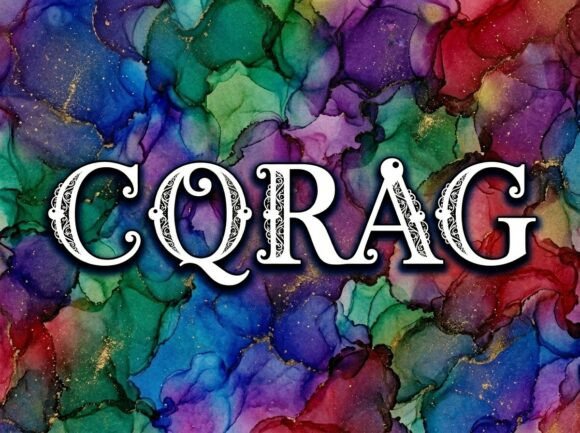
The Corag Font: A Stunning Decorative Display Font for Creative Minds
Have you ever been in the middle of a design project, pouring your heart and soul into it, only to hit a roadblock when it comes to choosing the perfect font? I certainly have! It was during one of those moments, working on a branding project for a client who wanted something truly unique and eye-catching, that I stumbled upon the Corag Font. This decorative display font has been a game-changer for me, and I’m excited to share my experience with you.
A Personal Encounter with Corag Font
I was working on a logo design for a boutique that specialized in handmade crafts. The client wanted a font that would reflect the artistic and creative vibe of their brand, but still convey a sense of professionalism. After hours of searching through font libraries and marketplaces, I came across Corag Font. Its unique artistic elements and strong visual personality immediately caught my attention. I knew I had found the perfect fit.
An Honest Review of Corag Font
So, what do I love about Corag Font? Here are a few highlights:
- ✨ Unique and eye-catching design that’s perfect for making a statement
- 💡 Versatile enough for use in bold headlines, artistic logos, and creative packaging
- 🎨 Strong visual personality that adds a touch of artistic flair to any design
However, there are a few quirks to be aware of:
- ⚠️ Corag Font is an ALL-CAPS (Uppercase Only) display typeface, which means it doesn’t include lowercase letters
- 🤔 This font is specifically designed for high-impact headlines, logos, and decorative initials, so it may not be the best choice for body text or longer blocks of text
The Backstory Behind Corag Font
Corag Font was designed with the intention of creating a unique and eye-catching display font that would stand out in any design. The designer aimed to craft a font that would be both artistic and professional, making it perfect for creative projects and high-impact headlines. While the designer’s inspiration is not well-documented, it’s clear that Corag Font was created with the goal of helping designers and creatives elevate their work.
| Is Corag Font suitable for body text? | No, Corag Font is designed specifically for display text, headlines, and decorative elements. It’s not recommended for longer blocks of text. |